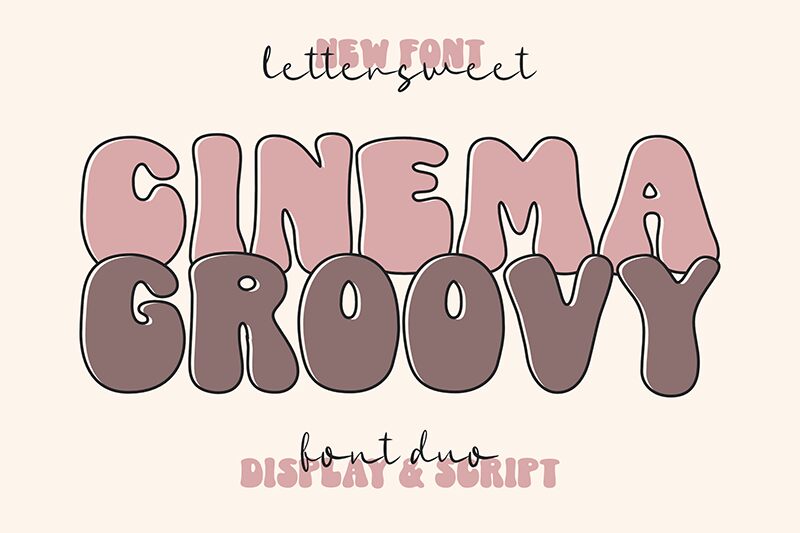
Cinema Groovy font by Lettersweet Studio is a bold display typeface with retro, psychedelic, bubbly, and organic shapes reminiscent of the 1960s. This groovy free font takes its influence from popular decorative features of that decade’s culture and transfers it into a modern digital context.
Use Cinema Groovy in designing posters, flyers, book covers, magazines covers, product packaging, movie titles. Branding projects of all sorts will benefit from the font’s originality which will also work for even short body texts where visual interest is needed.
Cinema Groovy